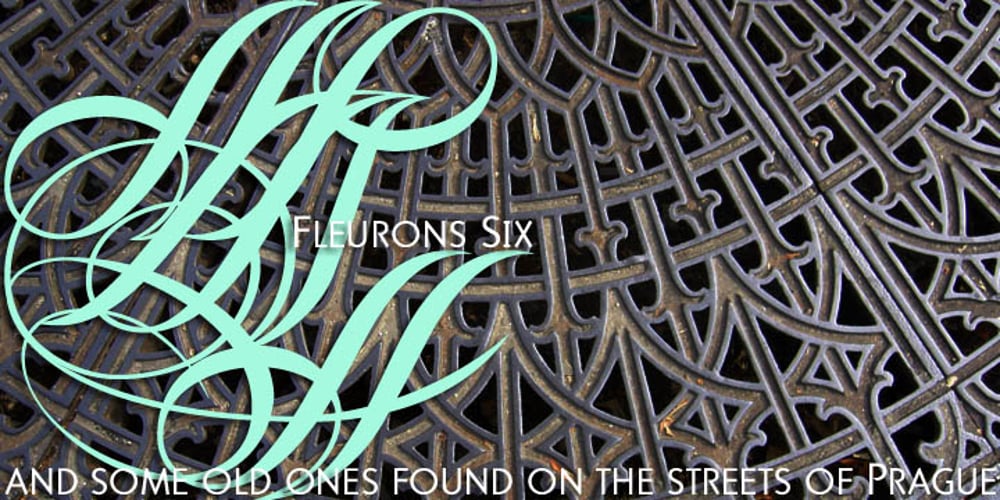
Fleurons Six Font Family was designed by Gert Wiescher and published by Wiescher Design. Fleurons Six contains 1 styles and family package options. Fleurons are embellishments and this is my sixth and so far most beautiful round. I again found some nice old ones and made them completely new. These go well with many Copperplate scripts and especially with my scripts Nadine and Ellida. Your very elaborate, Gert Wiescher